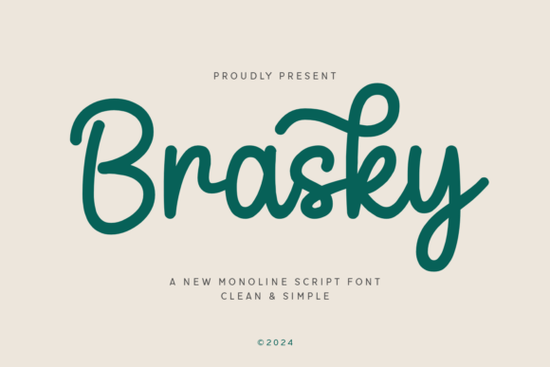
If you're looking for a script font that’s both modern and easy to read, Brasky Font is worth a closer look. It’s a clean monoline script meaning every stroke has the same consistent weight which gives it a sleek, uncluttered appearance without sacrificing personality. Whether you’re designing wedding invitations, branding a small business, or creating printable wall art, Brasky strikes a nice balance between elegance and practicality.
Unlike some overly ornate scripts that can be hard to decipher at smaller sizes, Brasky maintains clarity while still offering that hand-lettered charm. Its smooth, flowing letterforms connect naturally, making it ideal for short headlines, quotes, or logo wordmarks where you want a touch of sophistication without overwhelming your audience.
What makes Brasky work well for real-world projects?
Monoline scripts like Brasky have become popular because they’re versatile across both digital and print formats. Since there are no dramatic thick-and-thin contrasts (like in traditional calligraphy fonts), they scale cleanly on everything from social media graphics to embroidered tote bags.
For crafters and print-on-demand sellers, this consistency means fewer headaches during production. You won’t run into issues where fine hairlines disappear on low-resolution printers or get lost in embroidery digitizing. That reliability is especially helpful if you’re creating products for clients who expect professional results every time.
If you enjoy pairing fonts, Brasky plays nicely with minimalist sans-serifs or even playful display fonts. For example, you might use it alongside something like the White Heart Font for a romantic invitation suite, or contrast it with a bold western-style typeface like those found in the Western Font collection for a rustic-chic look.
How does Brasky compare to other script fonts?
Not all script fonts are created equal. Some lean too casual, others too formal. Brasky lands right in the middle polished but approachable. It doesn’t mimic actual handwriting so closely that it feels messy, nor is it so rigid that it loses warmth.
Compare it to the whimsical bounce of the Disney-inspired script fonts, which are great for playful themes but less suited for corporate or upscale contexts. Brasky, by contrast, stays grounded and legible, making it a safer choice for business cards, boutique packaging, or editorial layouts.
And while bundles like the Dream Big Bundle offer variety for designers who need multiple styles in one go, Brasky stands out as a single, focused tool perfect if you prefer quality over quantity and want a dependable go-to script.
Where can you use Brasky effectively?
Here are a few real-life applications where Brasky shines:
- Event stationery: Wedding invites, baby shower tags, or anniversary menus benefit from its graceful flow.
- Logo design: Small businesses in wellness, beauty, or lifestyle niches often favor clean scripts for their brand identity.
- Social media quotes: Its readability ensures your message isn’t lost in a sea of decorative swirls.
- Print-on-demand products: Mugs, T-shirts, and notebooks featuring Brasky text look cohesive and intentional, not cluttered.
One thing to keep in mind: because Brasky is a connected script, it works best with shorter phrases. Long paragraphs can become visually tiring, so reserve it for headlines, names, or accent text rather than body copy.
Tips for getting the most out of Brasky
To make your designs pop without overdoing it:
- Use generous spacing: Slightly increase letter-spacing if letters feel too tight in your layout software.
- Limit uppercase use: Brasky’s lowercase forms carry the most character; full caps can flatten its rhythm.
- Pair with neutral backgrounds: Soft pastels, warm whites, or muted earth tones let the font’s lines stand out without competing.
Finally, always test your design at the final output size especially if you’re printing or cutting vinyl. What looks fluid on screen might need minor tweaks to maintain clarity in physical form.